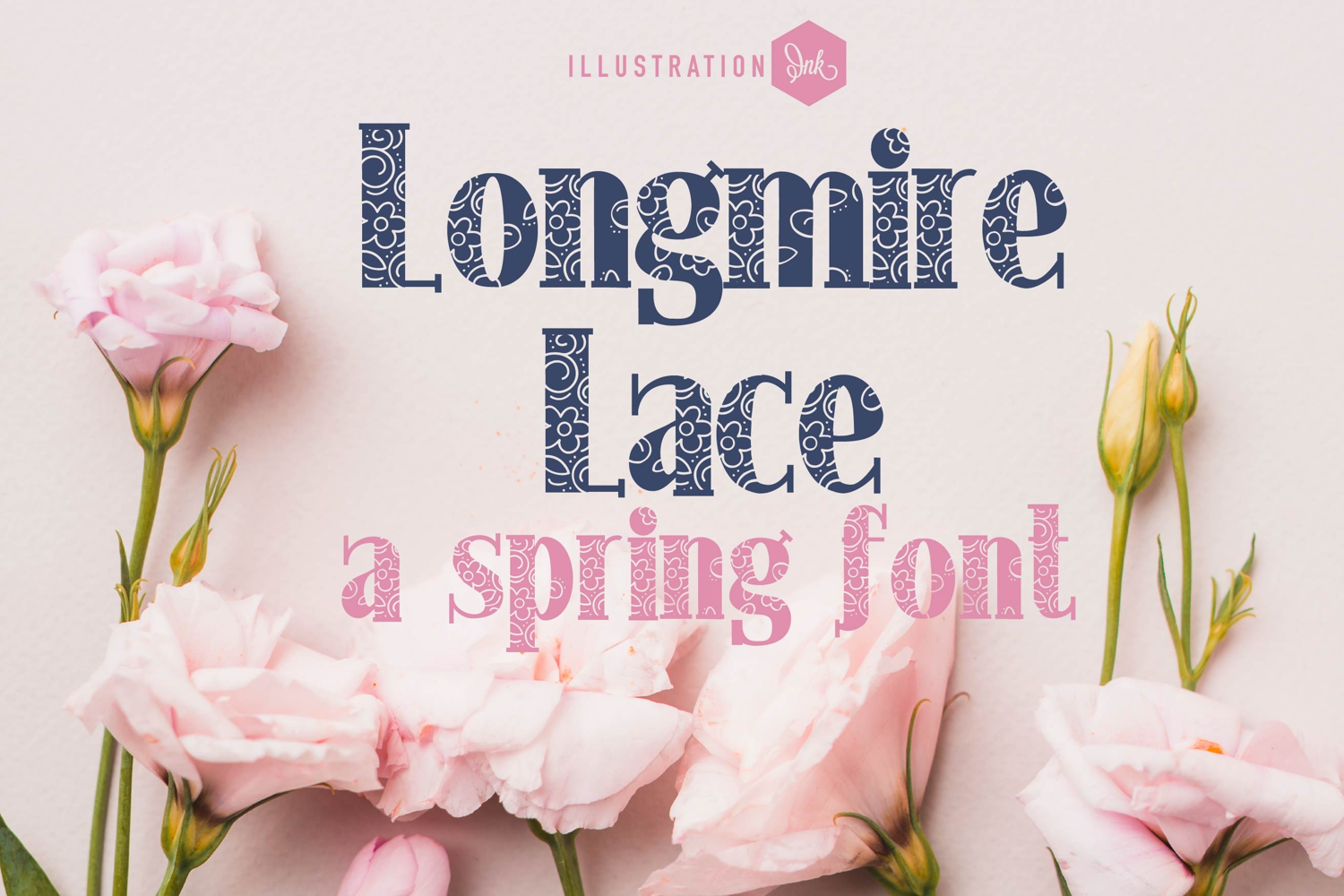
Longmire Lace Font Family
This hand-crafted font is a sports florals with 10 variations.
• The letters are not perfectly uniform in size or shape.
• There may be slight variations in the spacing between letters and words.
• The font may have a "wiggly" or "squiggly" appearance.
• The font may be difficult to read at small sizes.